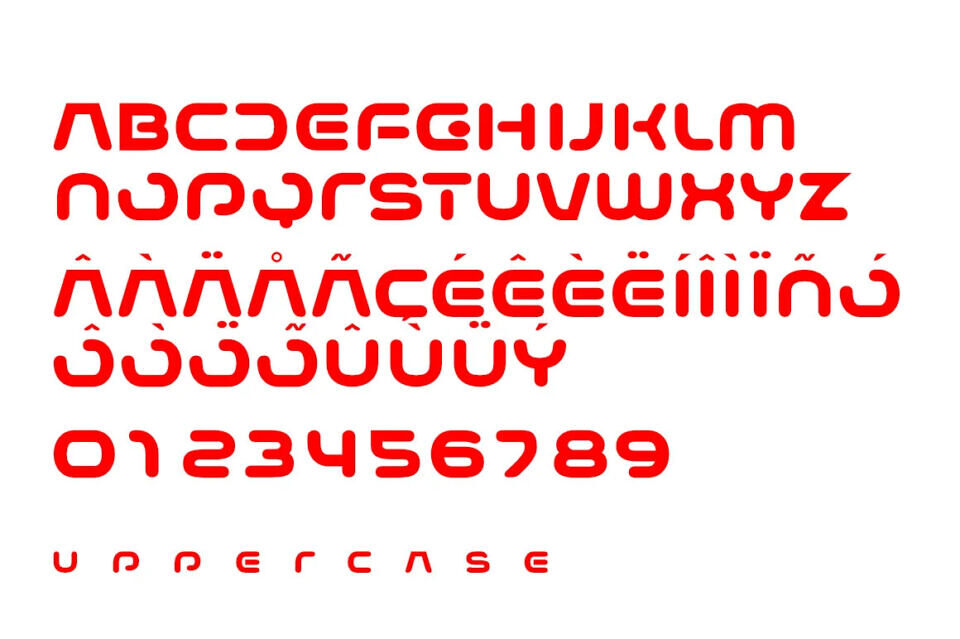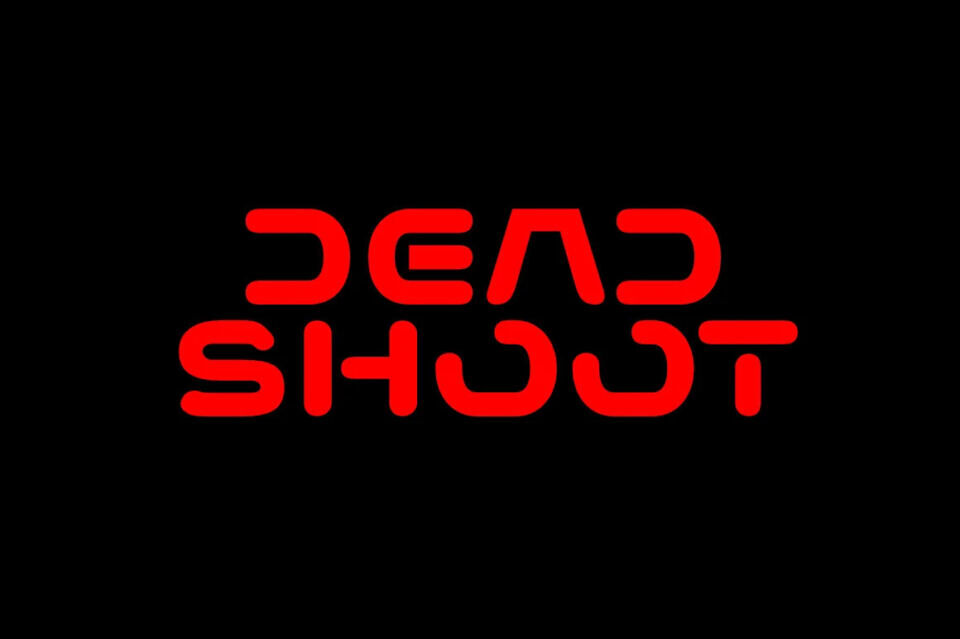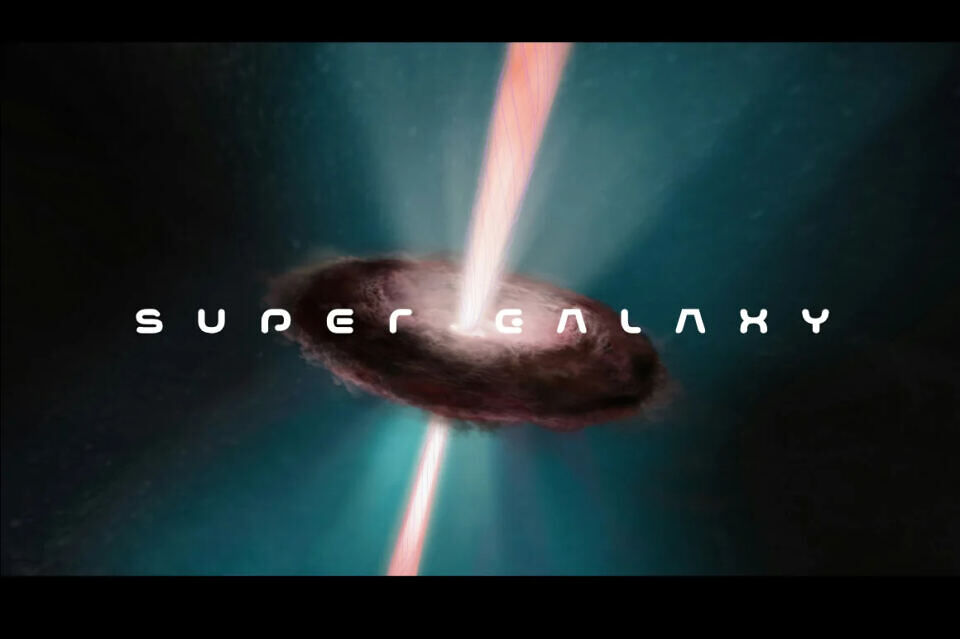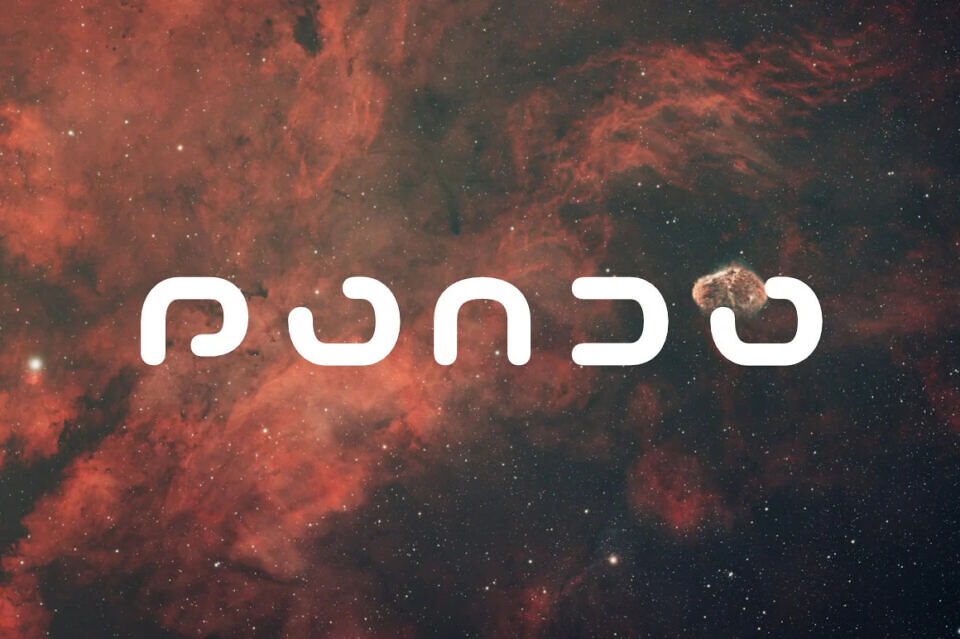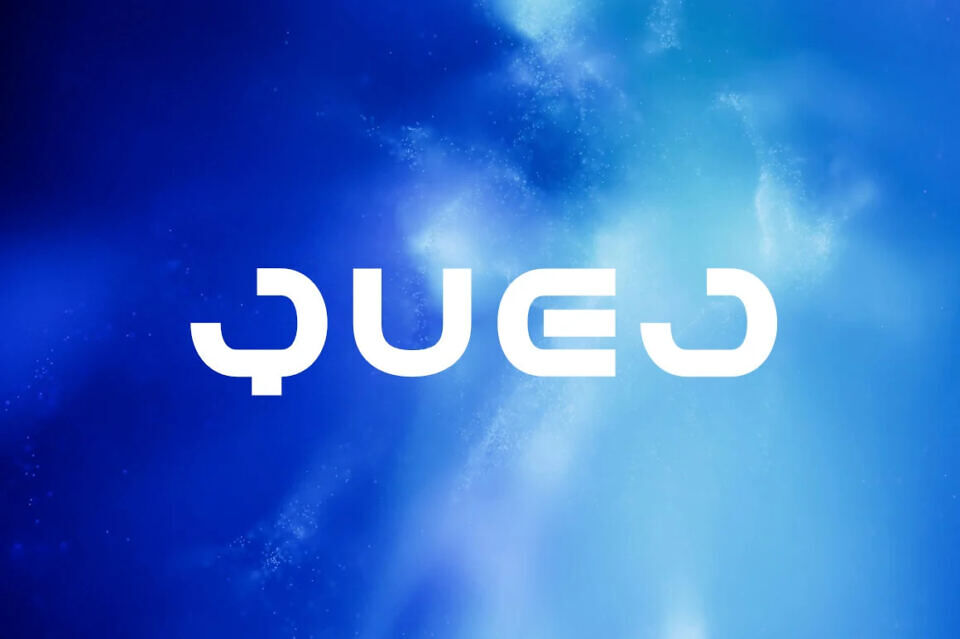
Maxbeda Font
A perfect harmony of industrial grit and cyber precision. This sans style slices through the noise with angular lines and a commanding presence. It thrives in neon-lit campaigns, modern packaging, and anything that demands a sharp, contemporary voice.